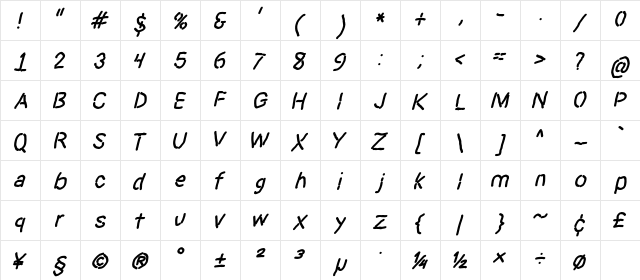
Dictator Ita
Design Context for Dictator Typeface
Dictator takes a measured approach to typography — its balanced proportions and neutral character make it a reliable workhorse for both digital and print work. The dynamic lean of this cut emphasises speed and emphasis in any layout.
Pro Tip: Use Dictator for emphasis, pull quotes, and subheadings where its slanted energy can add rhythm to the layout.